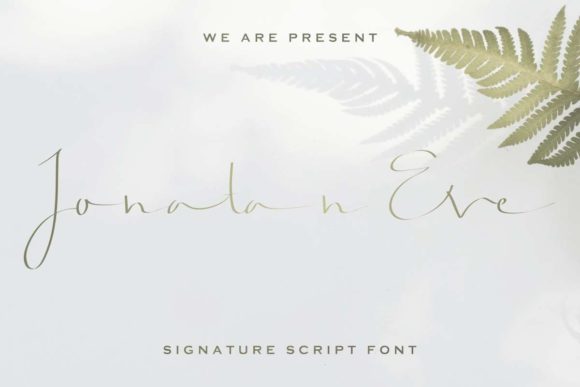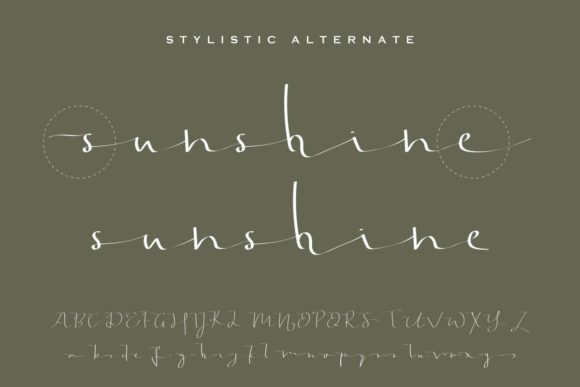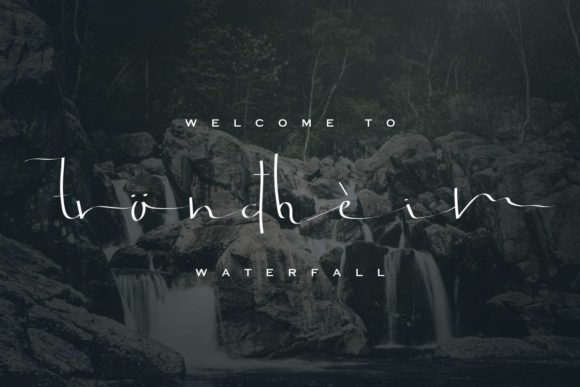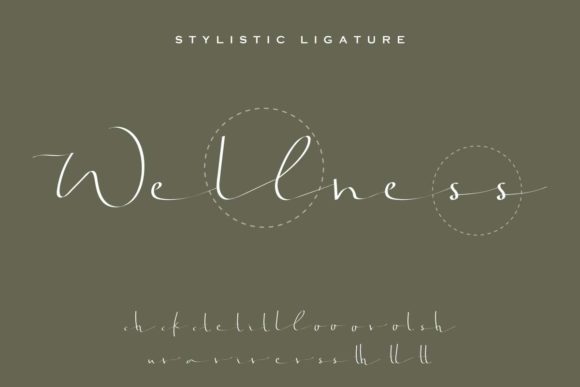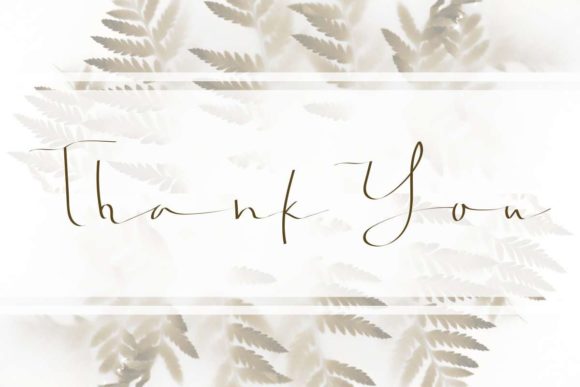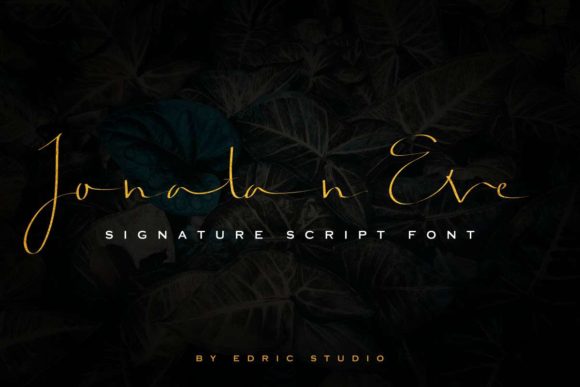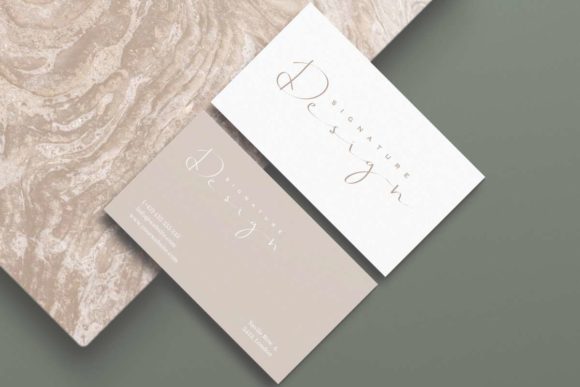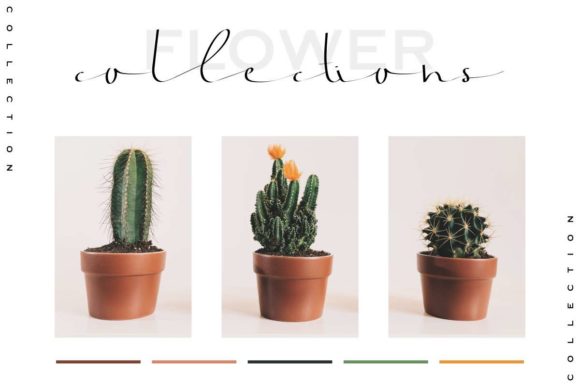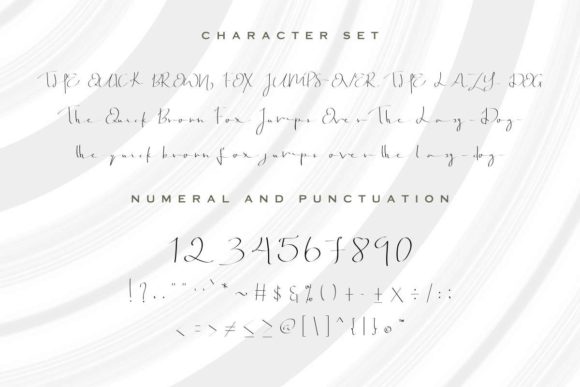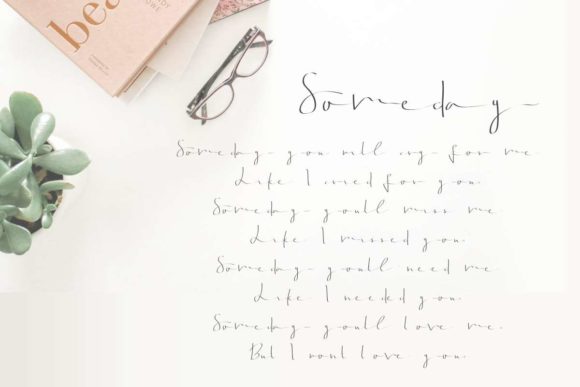
Jonatan Eve Font
About Jonatan Eve Font
Jonatan Eve is a wonderfully sweet and elegant script font that will turn any design project into a true standout.